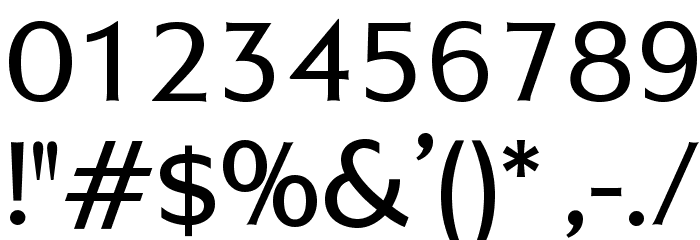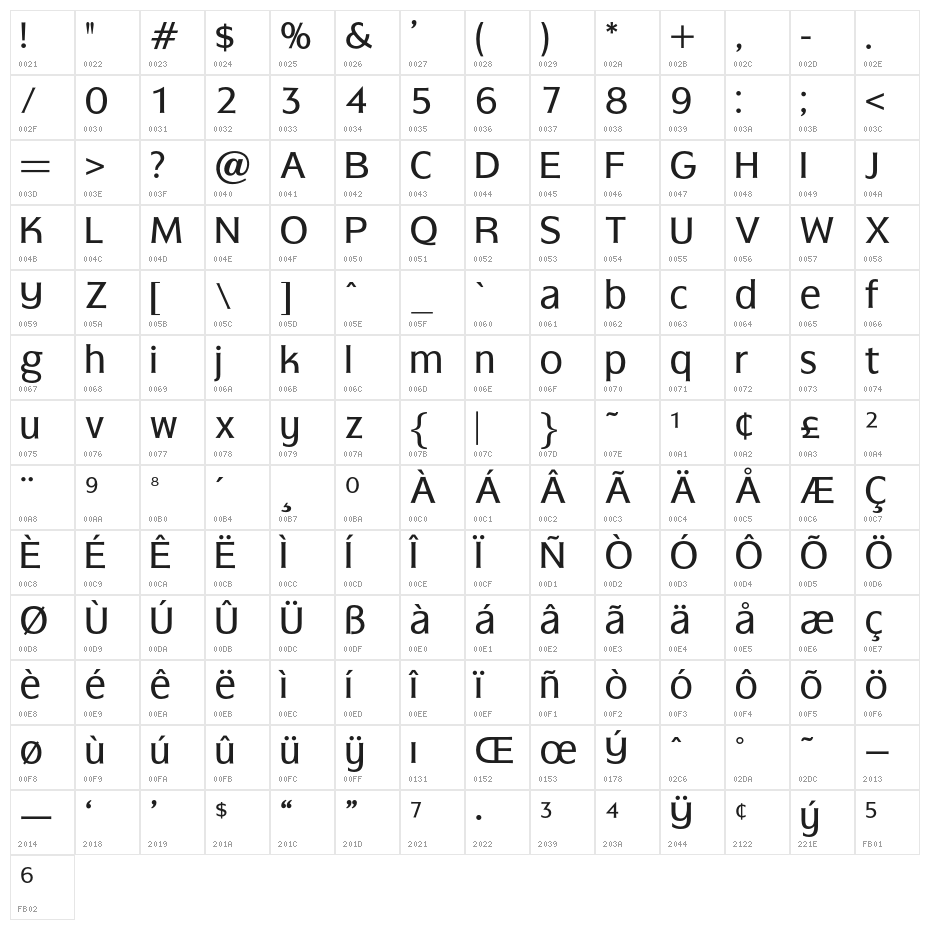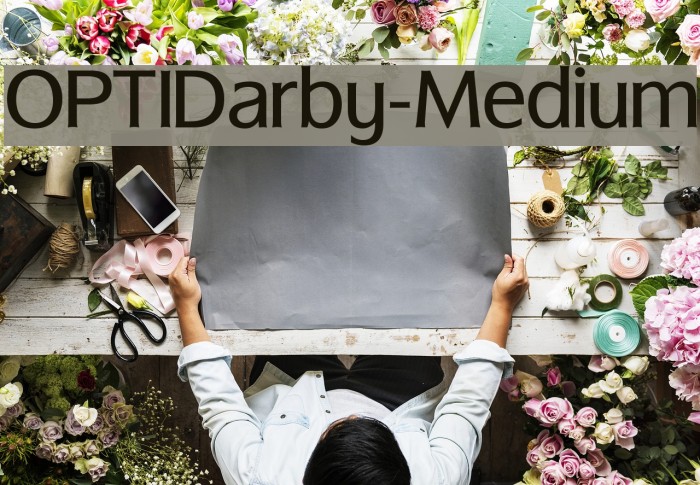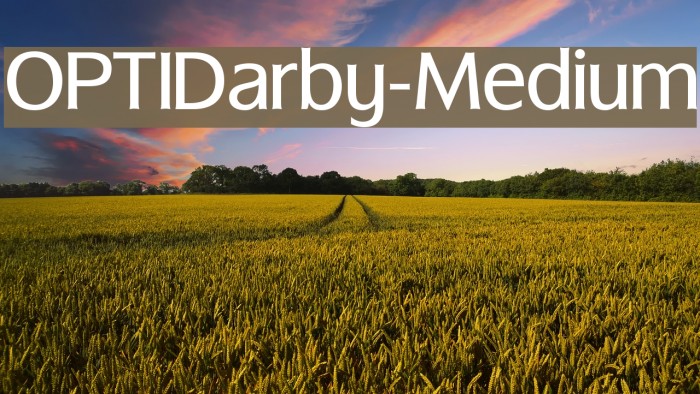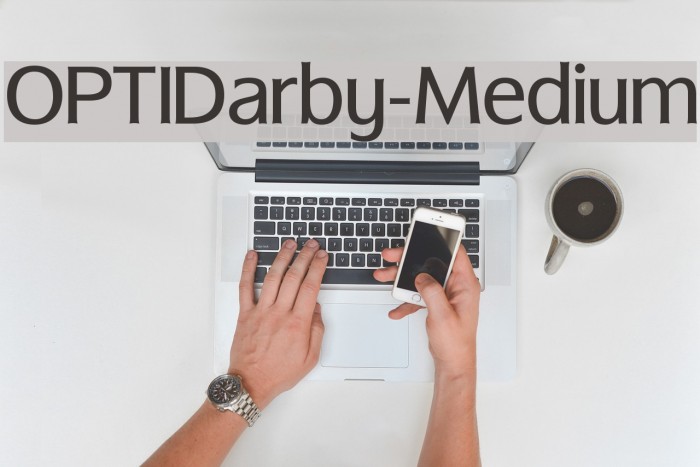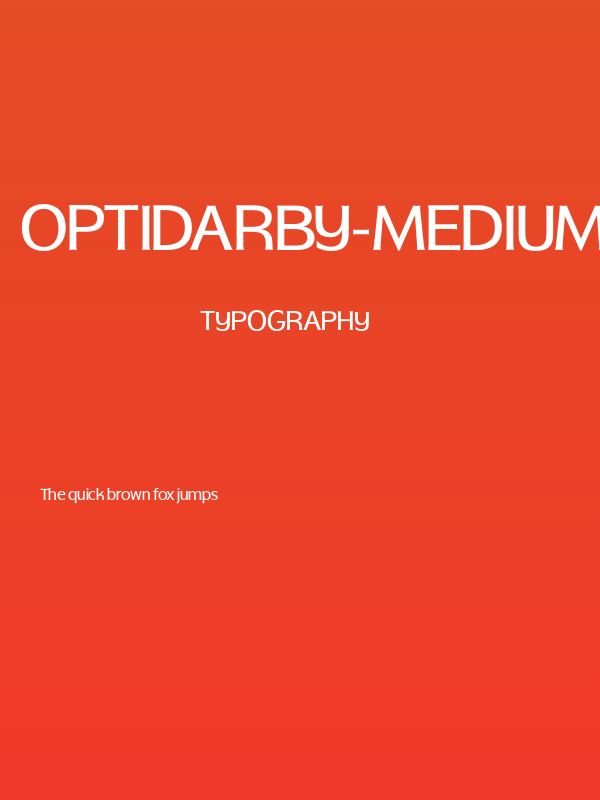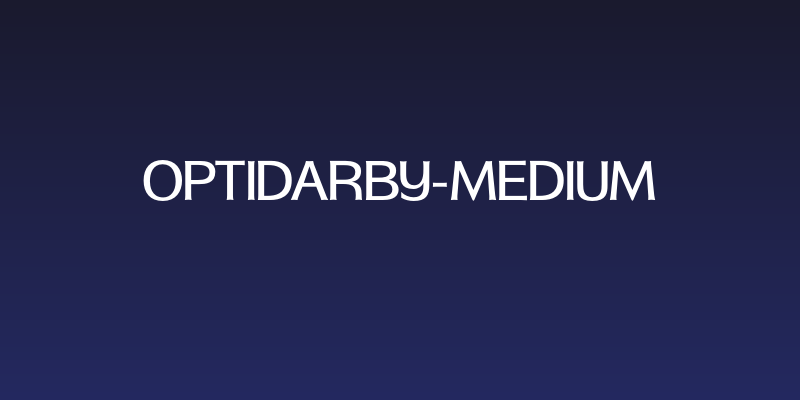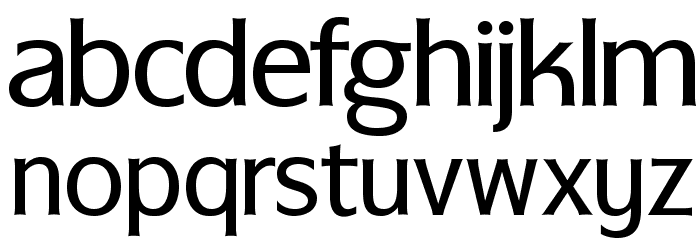
OPTIDarby-Medium Font
OPTIDarby-Medium Description
This font features a clean and modern sans-serif design, characterized by its balanced proportions and smooth curves. The uppercase letters are bold and assertive, while the lowercase letters maintain a friendly and approachable appearance. The numerals are clear and legible, making them suitable for various applications. Special characters are well-integrated, ensuring consistency across different uses. The overall design is versatile, making it suitable for both digital and print media. Its simplicity and elegance make it a great choice for professional and contemporary projects.